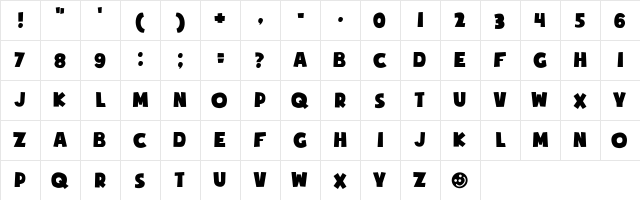
Soup of Justice Soup of Justice
Design Context for Soup of Justice Typeface
Soup of Justice is a composed and adaptable typeface that performs quietly and consistently across a wide range of design contexts.
Pro Tip: Pair Soup of Justice with a font of contrasting weight or personality to build a more expressive typographic hierarchy.